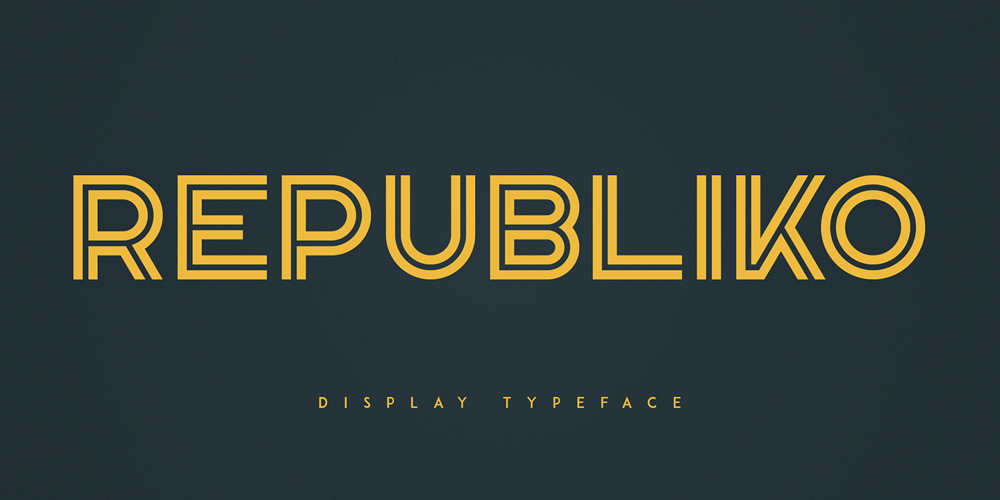
Republiko Font Family was designed by Vladimir Fedotov, Plamen Petrov and published by VP Creative Shop. Republiko contains 4 styles and family package options. Introducing Republiko – Display Typeface – 4 stylesRepubiko is bold, clean typeface with 4 styles and multilingual support. It’s a very versatile font that works great in large and small sizes.Republiko is perfect for branding projects, home-ware designs, product packaging, magazine headers – or simply as a stylish text overlay to any background image.